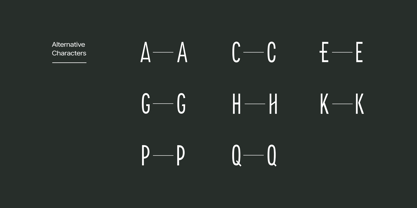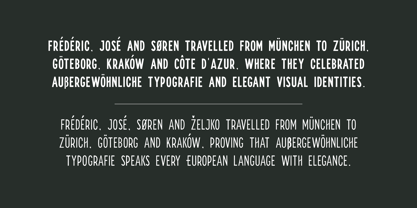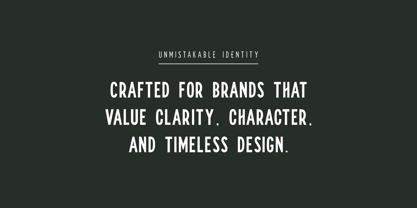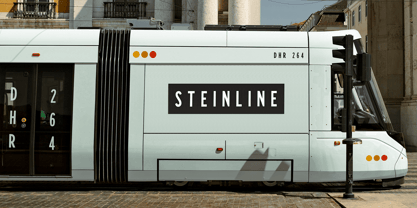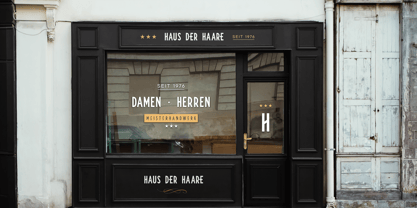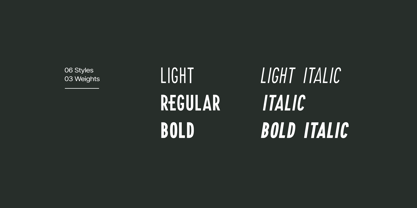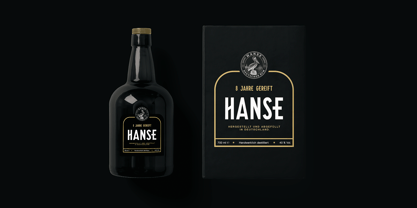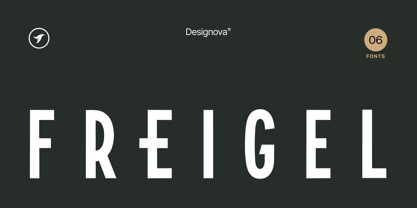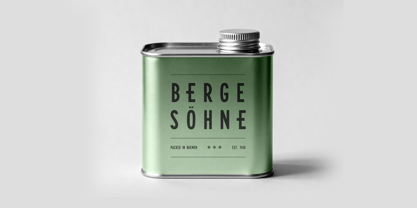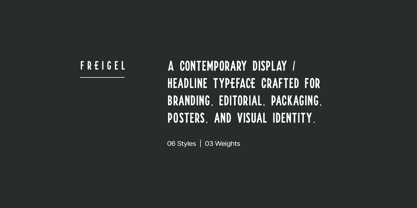
Freigel
Freigel is a contemporary display typeface designed for bold headlines, confident branding, striking editorial layouts, and impactful visual communication. Its clean geometry, balanced proportions, and refined details create a strong presence while maintaining excellent readability across display sizes.
Whether you're building a modern brand identity, designing premium packaging, crafting magazine layouts, or creating large-scale posters, Freigel delivers clarity, character, and versatility.
Designed with precision, Freigel combines timeless simplicity with a contemporary aesthetic, making it an ideal choice for designers seeking a typeface that feels both sophisticated and distinctive.
Freigel is perfect for:
• Branding & Visual Identity
• Logos & Wordmarks
• Editorial Design
• Posters & Headlines
• Packaging Design
• Advertising
• Signage
• Social Media Graphics
• Web Design
• Fashion & Lifestyle Brands
• Creative Agencies
FEATURES:
Freigel font family includes a collection of 6 fonts in total, with three upright weights and Italic equivalents of all six weights as follows:
• Light
• Light Italic
• Regular
• Italic
• Bold
• Bold Italic
368 GLYPHS INCLUDED:
Handcrafted and designed with powerful OpenType features in mind, each weight includes extended language support with Western European, Central European, and South Eastern European sets. A total of 368 glyphs are available.